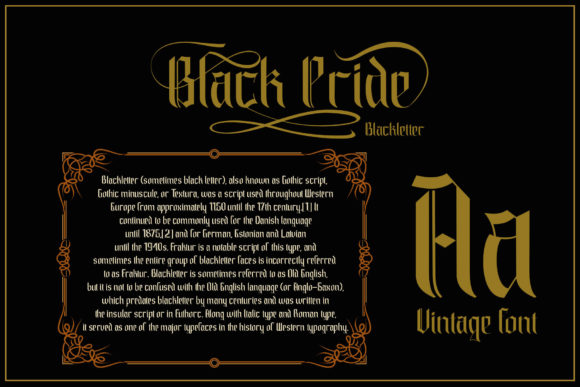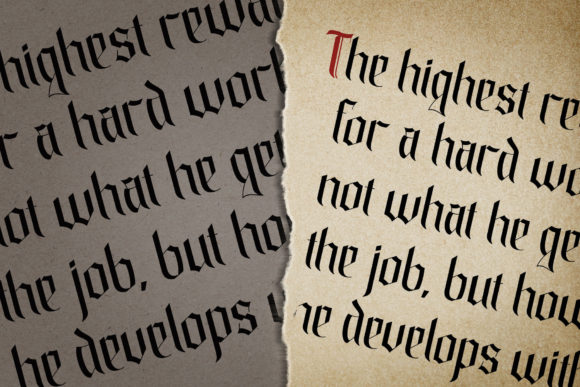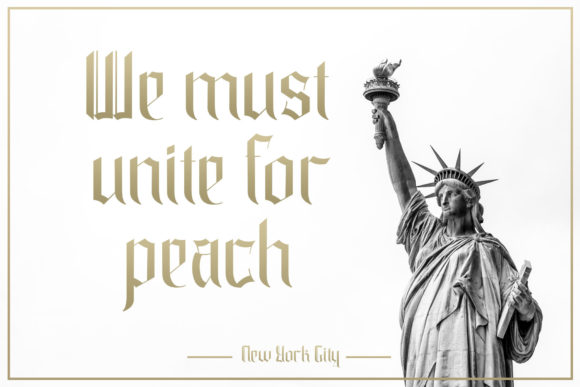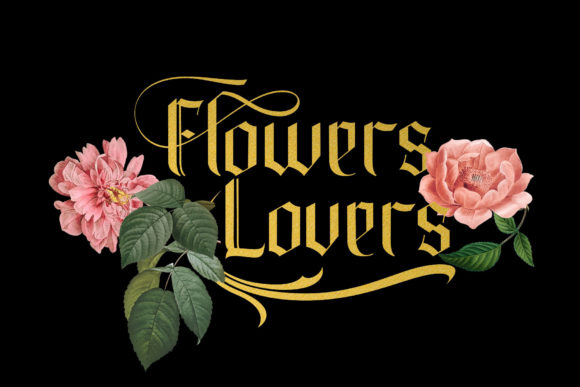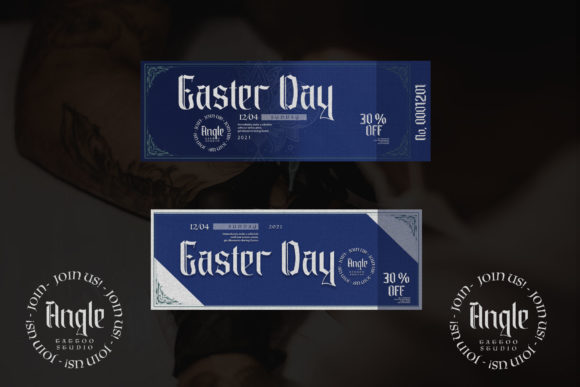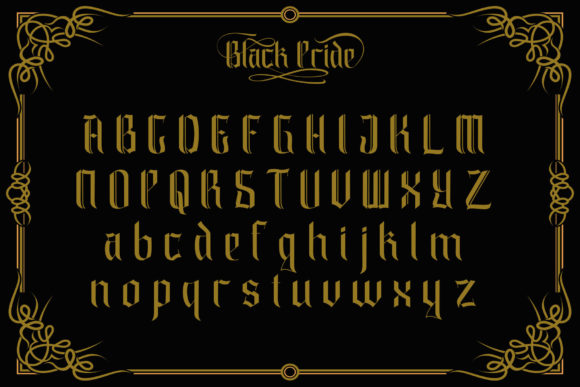
The Timeless Elegance of Black Pride Font
Have you ever stared at a blank canvas, waiting for the perfect font to bring your design to life? That’s exactly what happened to me when I was working on a branding project for a client. I wanted to convey a sense of strength and sophistication, but nothing seemed quite right – until I stumbled upon the Black Pride Font.
This majestic blackletter font is designed to make a statement, with its uniquely shaped letters and imposing presence. It’s the perfect addition to any project that requires a distinct touch, from wedding invitations to corporate logos. The Black Pride Font is a valuable tool for designers who want to add an air of sophistication and elegance to their work.
Black Pride Font Key Features
- Unique Characteristics: The font features a bold, modern design with geometric shapes and clean lines, evoking a sense of strength and pride.
Review of Black Pride Font
Overall, I’m impressed with the Black Pride Font’s bold and striking design. ✨ The font’s combination of modern and traditional elements creates a unique aesthetic that’s perfect for making a statement. ✨
One of the standout features of this font is its versatility. It can be used in a variety of contexts, from social justice movements to artistic expressions. ✨ The font’s bold lines and vibrant colors make it an excellent choice for posters, flyers, and other promotional materials.
While the Black Pride Font is a great addition to any designer’s toolkit, it’s not without its limitations. ⚠️ The font can be overwhelming if used in large quantities, and its bold design may not be suitable for all types of content. ⚠️ Additionally, the font’s limited character set may make it difficult to use for longer texts.
In conclusion, the Black Pride Font is a great choice for designers looking to make a bold statement. While it has its limitations, the font’s unique design and versatility make it a valuable addition to any toolkit. With some careful consideration of its use, this font can be a powerful tool for creating eye-catching designs.
- Unique blend of modern and traditional design elements
- Perfect for making a statement or expressing bold ideas
- Versatile and suitable for a variety of contexts
- Bold lines and vibrant colors make it an excellent choice for posters and flyers
- Limited character set may make it difficult to use for longer texts
- Can be overwhelming if used in large quantities
The “Black Pride Font” is perfect for:
- Celebrating Black History Month and cultural events.
- Creating awareness about social justice and equality issues